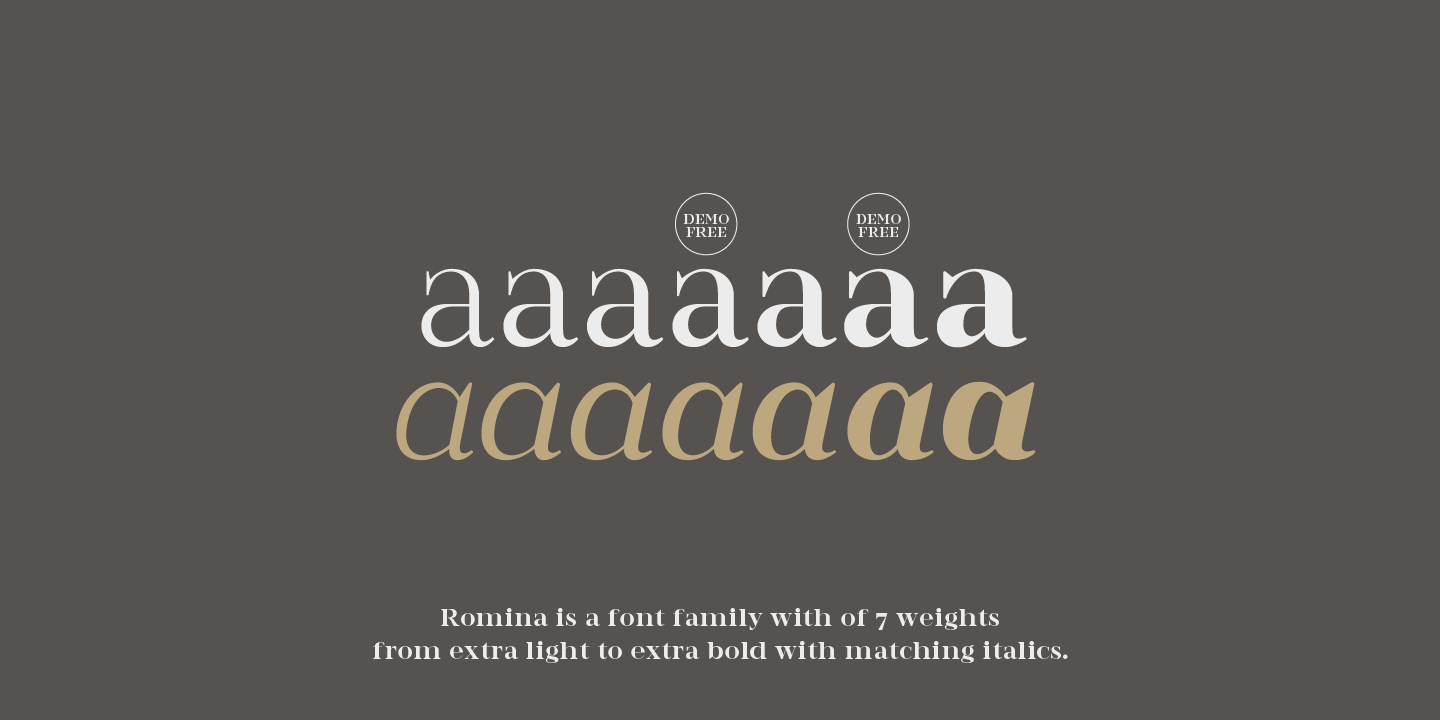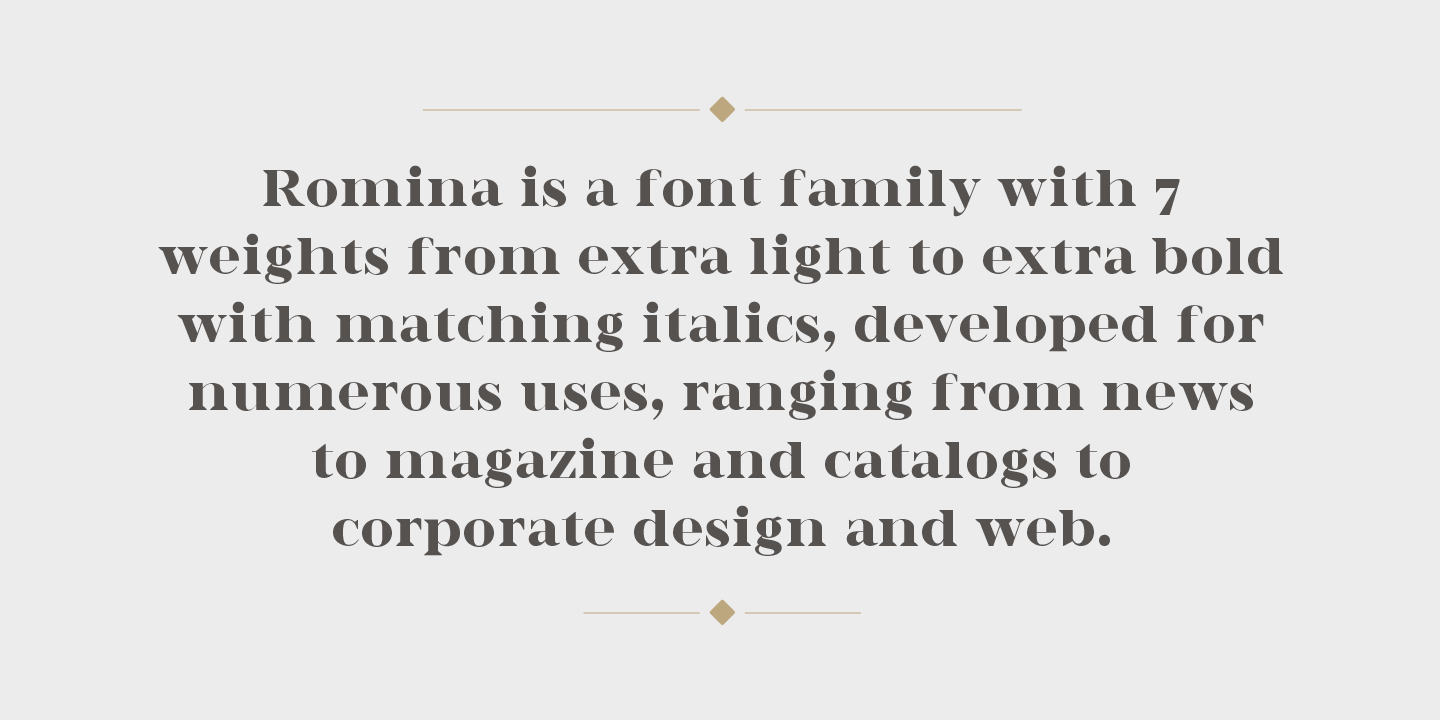
About Romina
Romina is a neoclassical font family with a hight contrast, developed for numerous uses, ranging from news to magazine and catalogs to corporate design and web. The Romina family consists of 7 weights from extra light to extra bold with matching italics.…